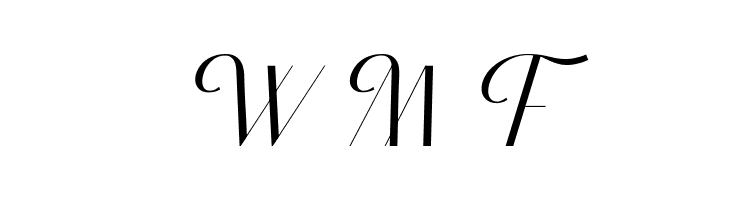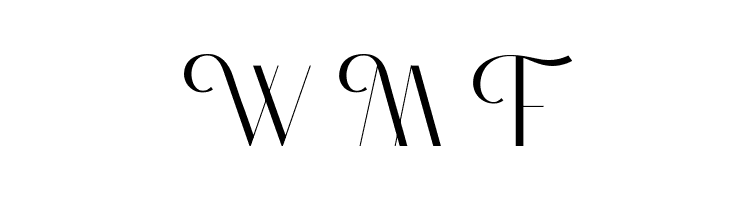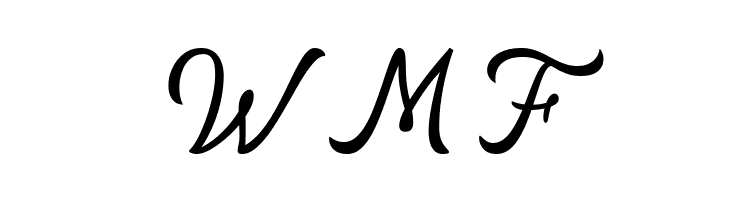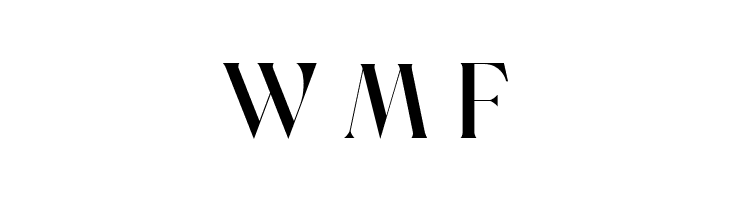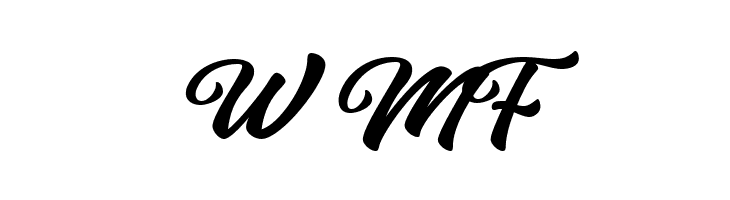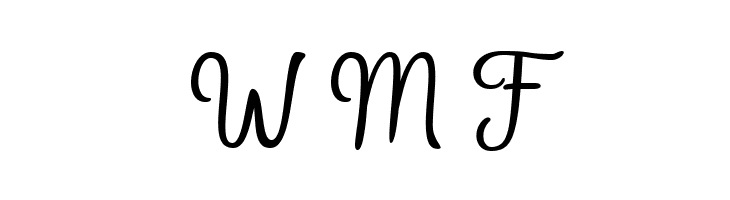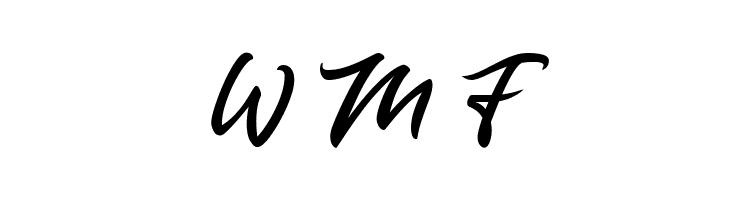
An elegant italic font with a modern, fluid style.
A sophisticated and elegant font with modern and classic elements, featuring tall, slender forms and sharp serifs.
A flowing, cursive font with elegant, connected characters and subtle flourishes.
A playful, handwritten-style font with bold, slightly irregular strokes.
A high-contrast, elegant serif font with sharp serifs and modern styling.
A bold, flowing script font with elegant curves and ornate details.
Elegant serif font with high contrast and classic appeal.
A flowing, cursive font with elegant loops and swashes.
A dynamic and flowing script font with elegant, cursive letterforms.
A sophisticated and elegant script font with flowing, cursive letters.